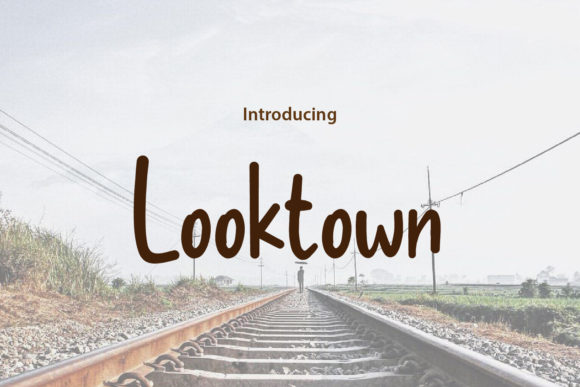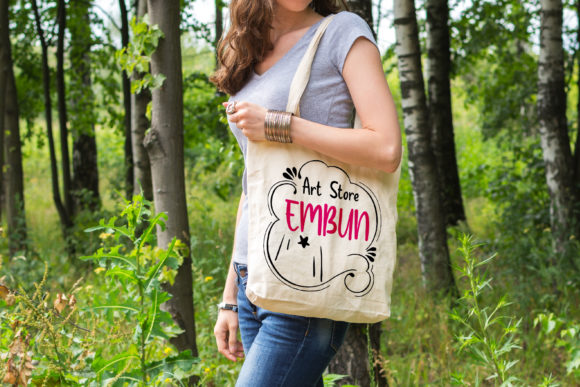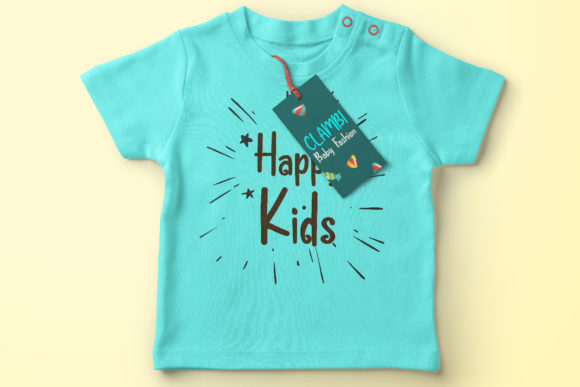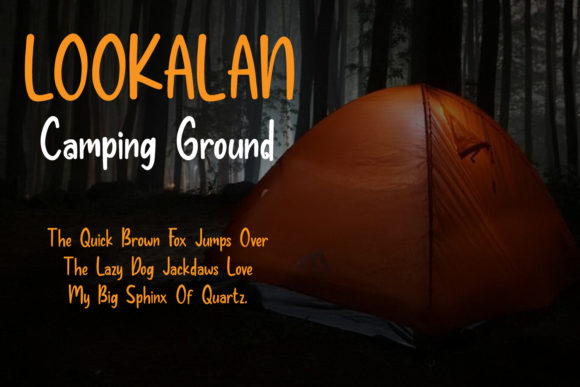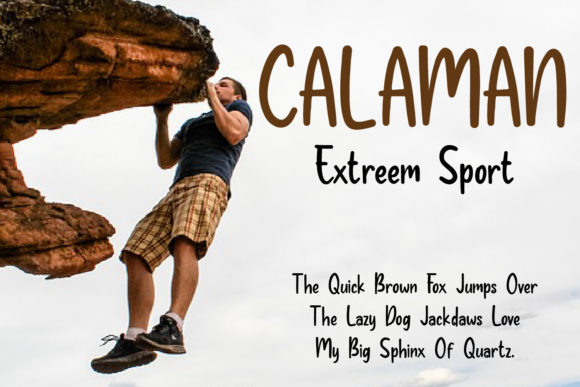
Looktown Font
About Looktown Font
Looktown is a playful and friendly handwritten font. Fall in love with its incredibly versatile style and use it to create spectacular designs!